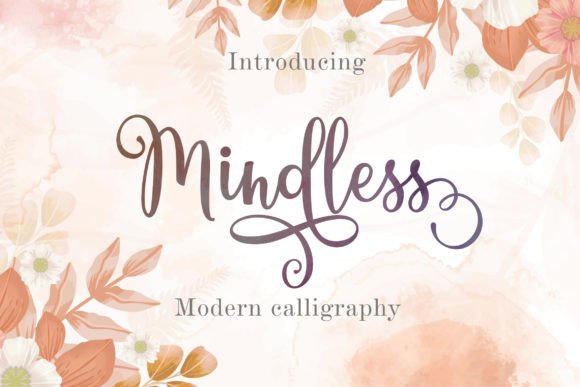
Prepare yourself to immerse in the world of Mindless Script, a delicate and elegant script font with a dash of modernism and sophistication. Embark on a journey through its pages and discover a realm of flowing strokes, subtle curves, and refined letterforms that are gracefully intertwined. Its enchanting presence adds a touch of elegance and sophistication to any design, making it an ideal companion for wedding invitations, enchanting brand identities, and captivating editorial pieces.
Enter the realm of Mindless Script and let the graceful strokes ignite your creativity. Its inherent charm will elevate your designs to new heights, leaving an unforgettable impression on your audience. Imagine the allure of handcrafted lettering elegantly dancing across your designs, captivating your audience with its refined aesthetics. With Mindless Script, you'll effortlessly create designs that exude timeless appeal and elegance.
Step into a realm of unbounded creativity, where ideas flow freely and designs come to life effortlessly. Mindless Script opens doors to a world where your imagination flourishes. Its versatility extends beyond the boundaries of wedding invitations, branding, and editorial design. Unleash your creative spark and explore its boundless potential.
Mindless Script is a gift, a treasure crafted with meticulous attention to detail. Its delicate strokes and seamless lines reflect the passion and dedication poured into its creation. Each character is a testament to the designer's love for the art of typography. With Mindless Script, you'll experience the joy of working with a font that enhances your creations and brings your vision to life.